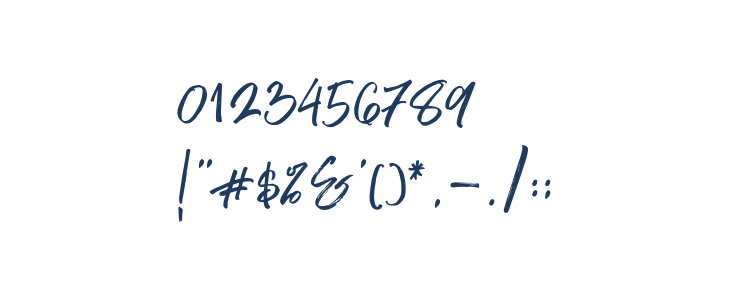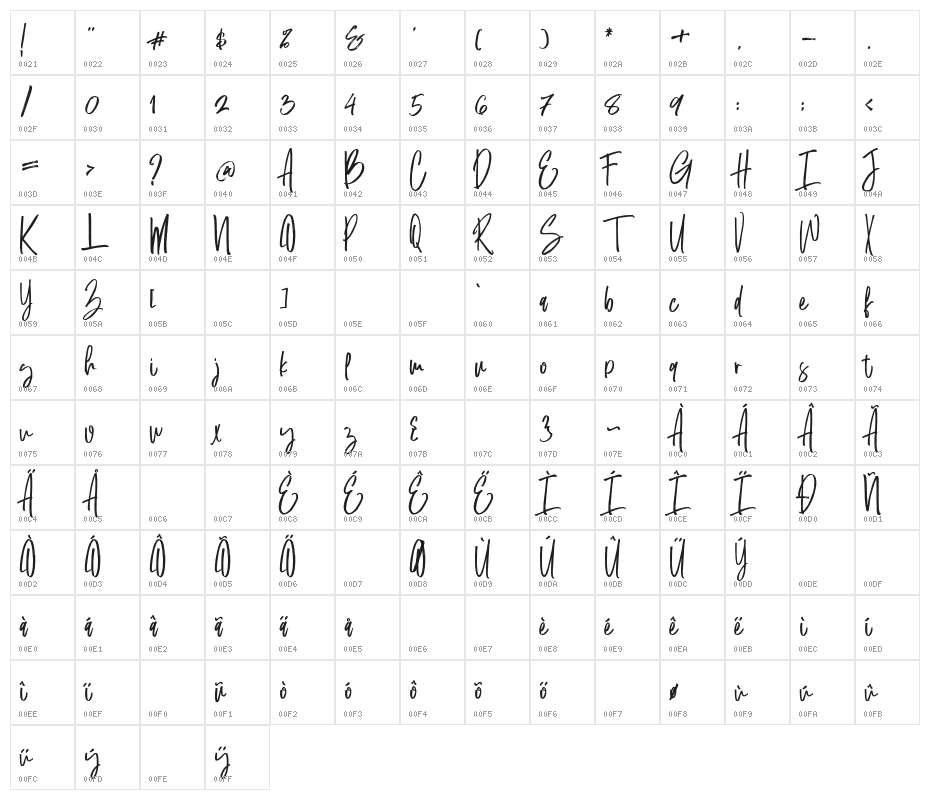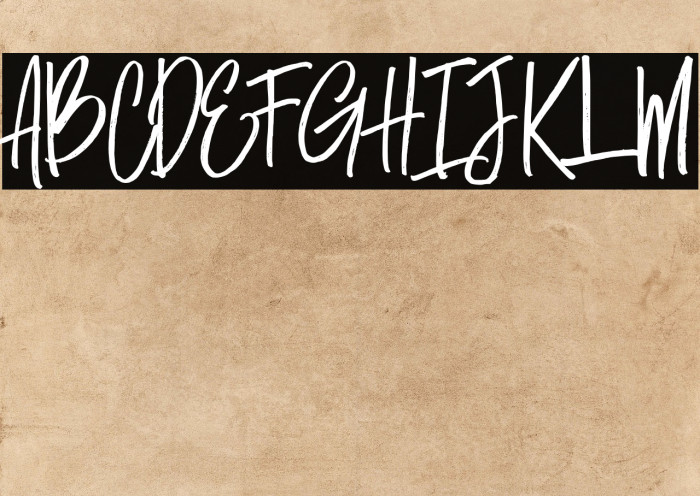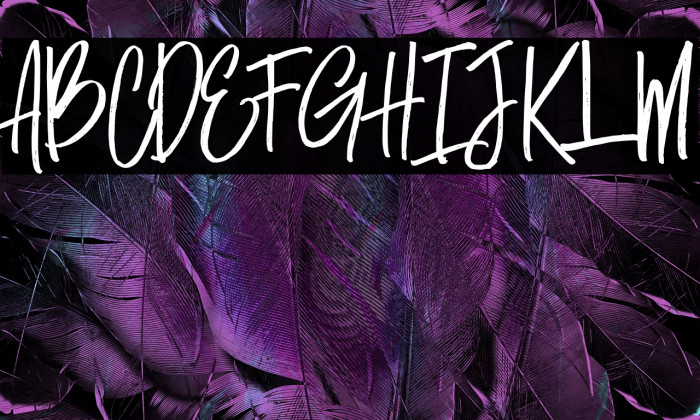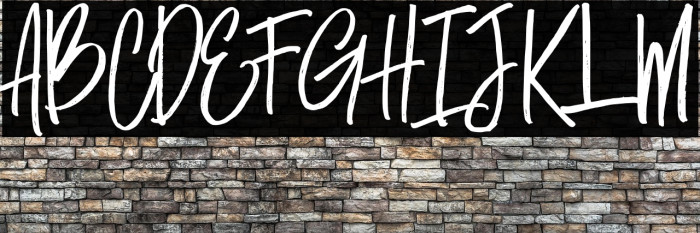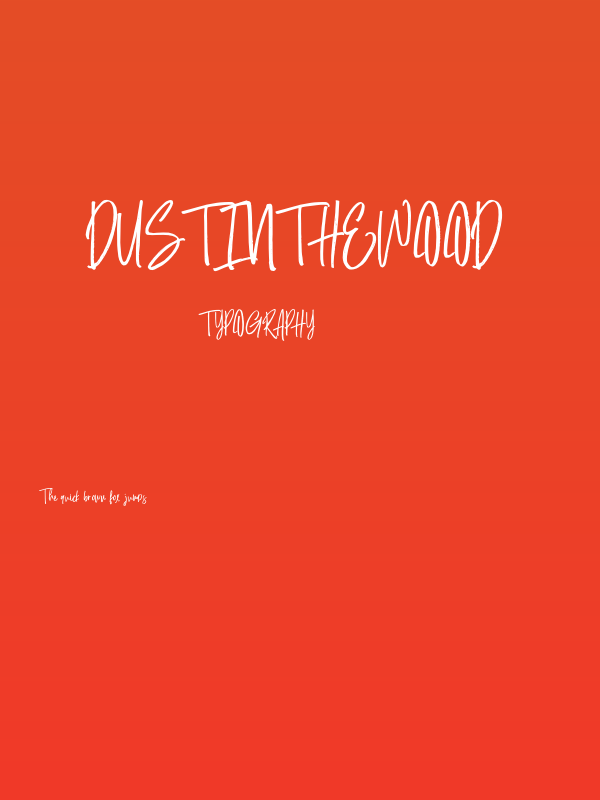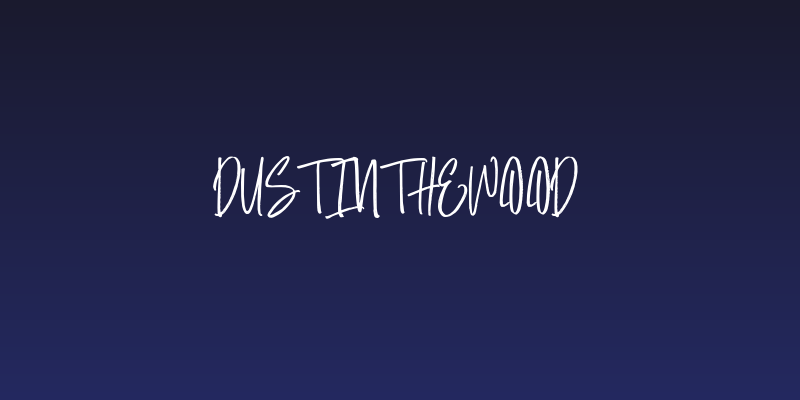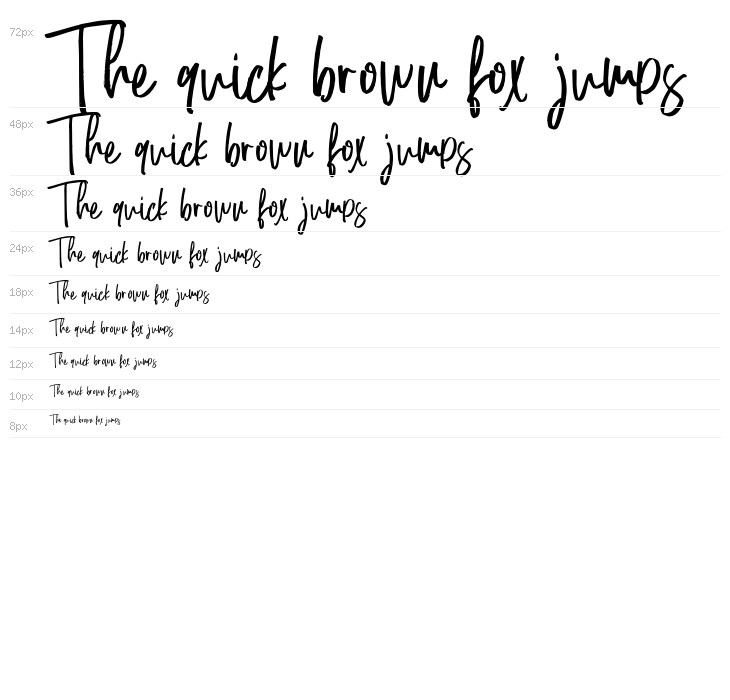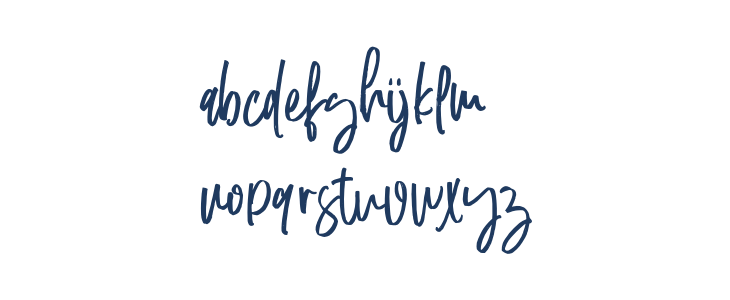
dustinthewood Font
dustinthewood Description
This font exudes a dynamic and expressive handwritten style, characterized by its tall, narrow uppercase letters and more fluid, connected lowercase letters. The strokes are bold and confident, with a natural, slightly irregular flow that adds a personal touch. The numbers and special characters maintain this lively aesthetic, making the font versatile for creative projects. The overall appearance is both modern and artistic, suitable for designs that require a personal, handcrafted feel.
Overall StyleModern, Artistic
Use CaseLogos, Headlines, Invitations
Proposed ProjectsIdeal for branding, invitations, greeting cards, and social media graphics where a personal, artistic touch is desired.